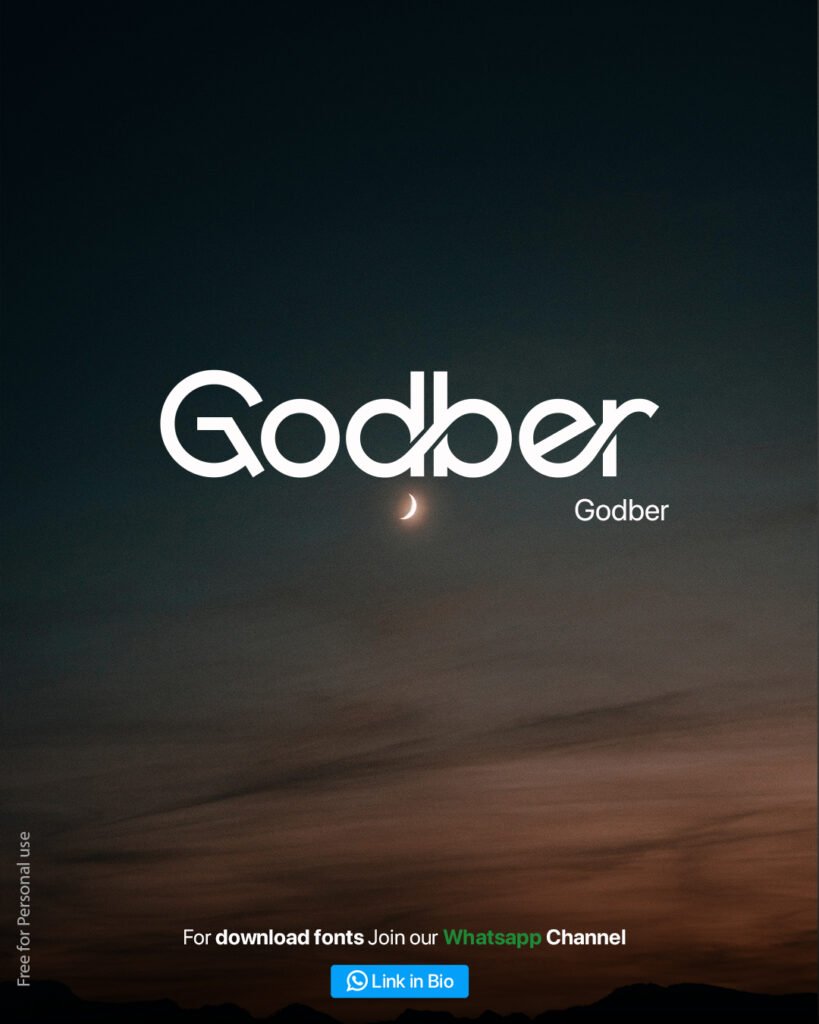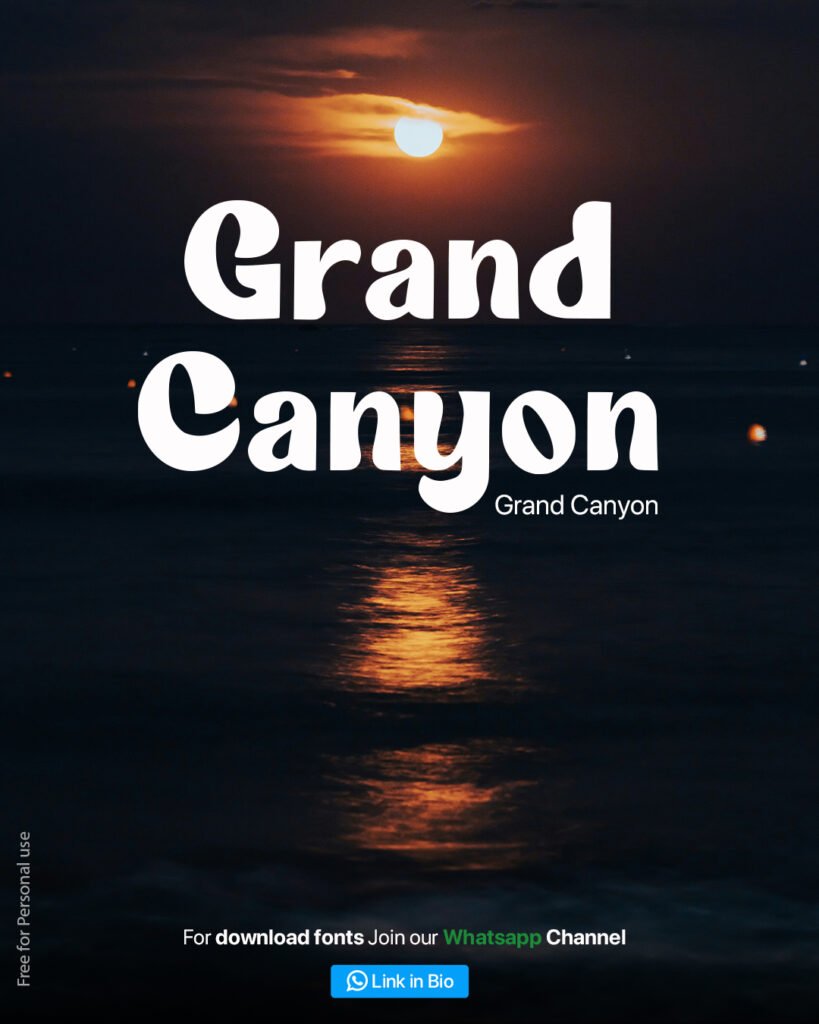
Introduction
Finding the right font for a logo is one of the most critical decisions in brand identity design. The wrong font can make even the best logo concept look cheap, while the right font instantly communicates personality, professionalism, and purpose.
In this third edition of our Logo Fonts series, we’re sharing 6 stunning free fonts that every graphic designer and brand identity designer should have in their collection. Whether you’re designing for a startup, a lifestyle brand, a tech company, or a streetwear label — there’s a font here for you.
1. Talina – Rounded Modern Font {#talina}
Best for: Lifestyle brands, beauty, wellness, SaaS, apps
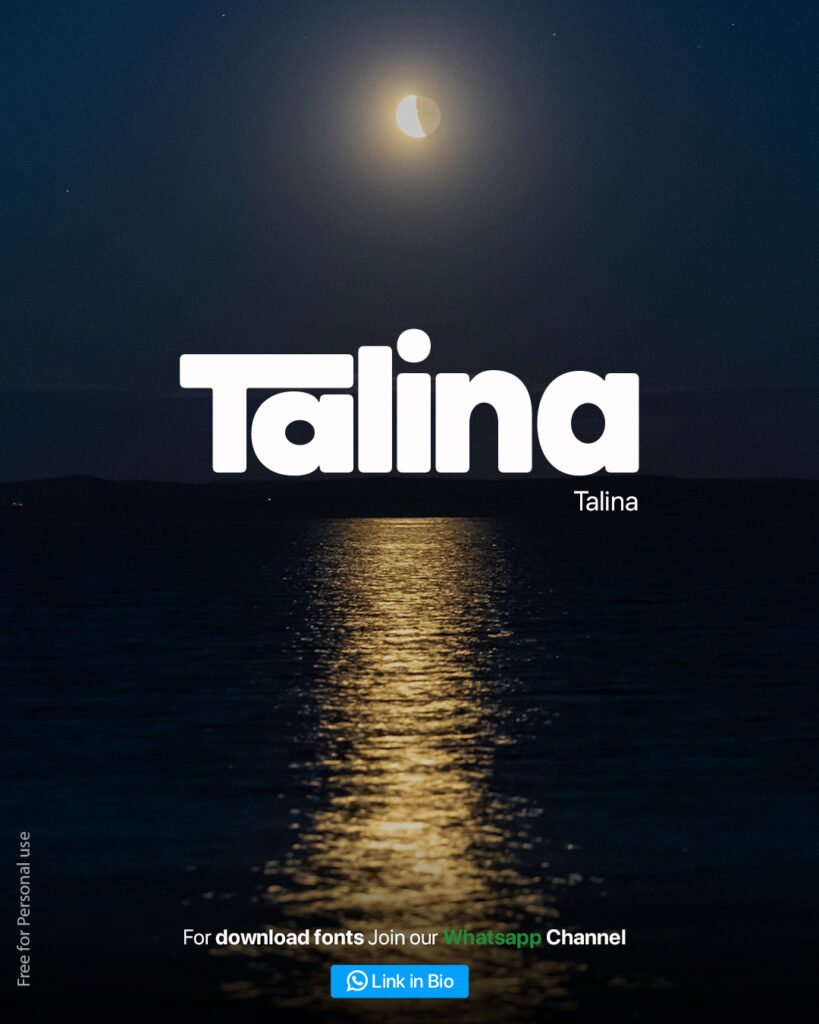
Talina is a beautifully rounded, modern display font with a clean and approachable aesthetic. The distinct feature of this font is the elevated dot on the letter “i”, which gives it a subtle personality without compromising its professional look.
Why Designers Love Talina
Talina works exceptionally well for brand names that want to feel friendly, modern, and approachable. The rounded letterforms reduce visual tension, making it a top choice for:
- Beauty and skincare brand logos
- Wellness and lifestyle app icons
- SaaS product wordmarks
- Children’s educational platforms
The generous spacing between letters also makes Talina highly legible at small sizes — a critical quality for responsive logo usage across mobile screens, business cards, and packaging.
Font Pairing Suggestions for Talina
Pair Talina with a neutral sans-serif like Inter or DM Sans for body text in brand identity systems. The contrast between Talina’s rounded curves and a geometric sans works beautifully in brochures and website headers.
2. The Last Trunks – Bold Edgy Display Font
Best for: Streetwear, music brands, gaming, entertainment
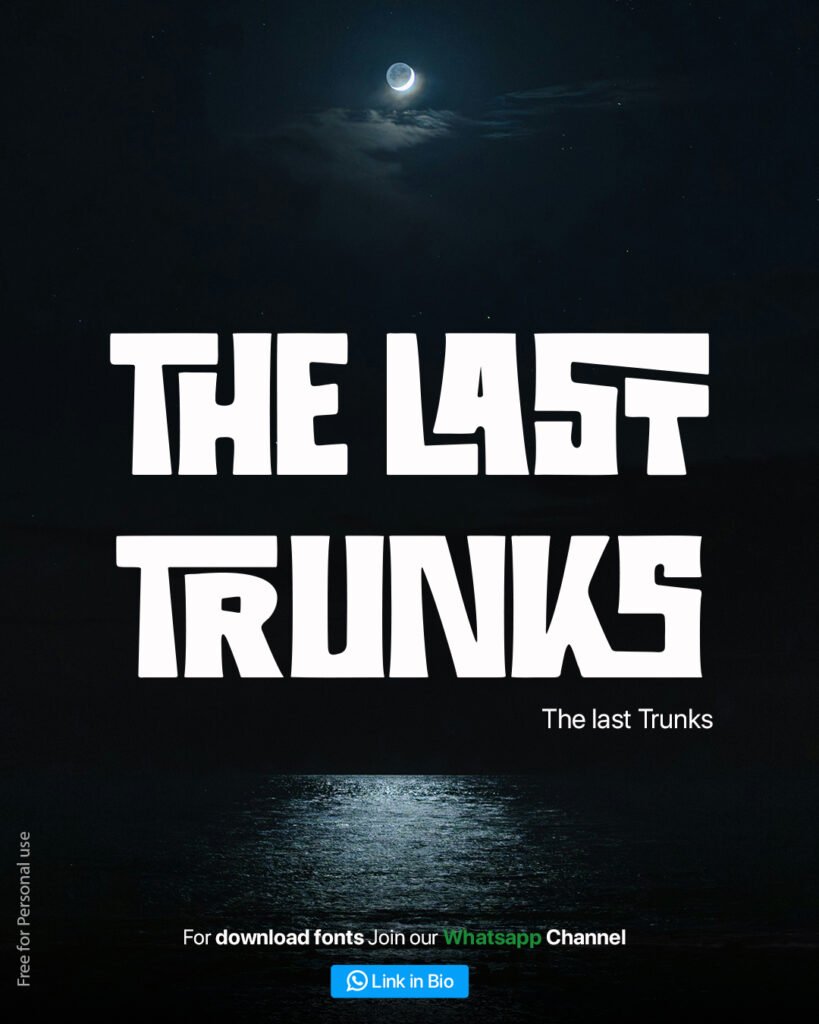
The Last Trunks is a high-impact, all-caps display font with a distinctively edgy character. The font features bold strokes with sharp diagonal cuts through letterforms — giving each character a deconstructed, aggressive visual energy.
Why Designers Love The Last Trunks
This font is not for the faint-hearted. It’s designed for brands that want to make a statement. The cut-through design details in letters like “A”, “E”, and “T” create a unique visual rhythm that’s instantly recognizable. This makes it a strong choice for:
- Streetwear clothing brand logos
- Music artist names and album covers
- Gaming channel branding and esports logos
- Event titles, festivals, and concert posters
When NOT to Use The Last Trunks
Avoid this font for corporate, healthcare, finance, or professional services branding. Its aggressive personality can work against trust-based brand positioning. Stick to industries where boldness is a feature, not a liability.
3. Corpta – Futuristic Tech Font {#corpta}
Best for: Tech startups, SaaS, fintech, AI companies, cybersecurity
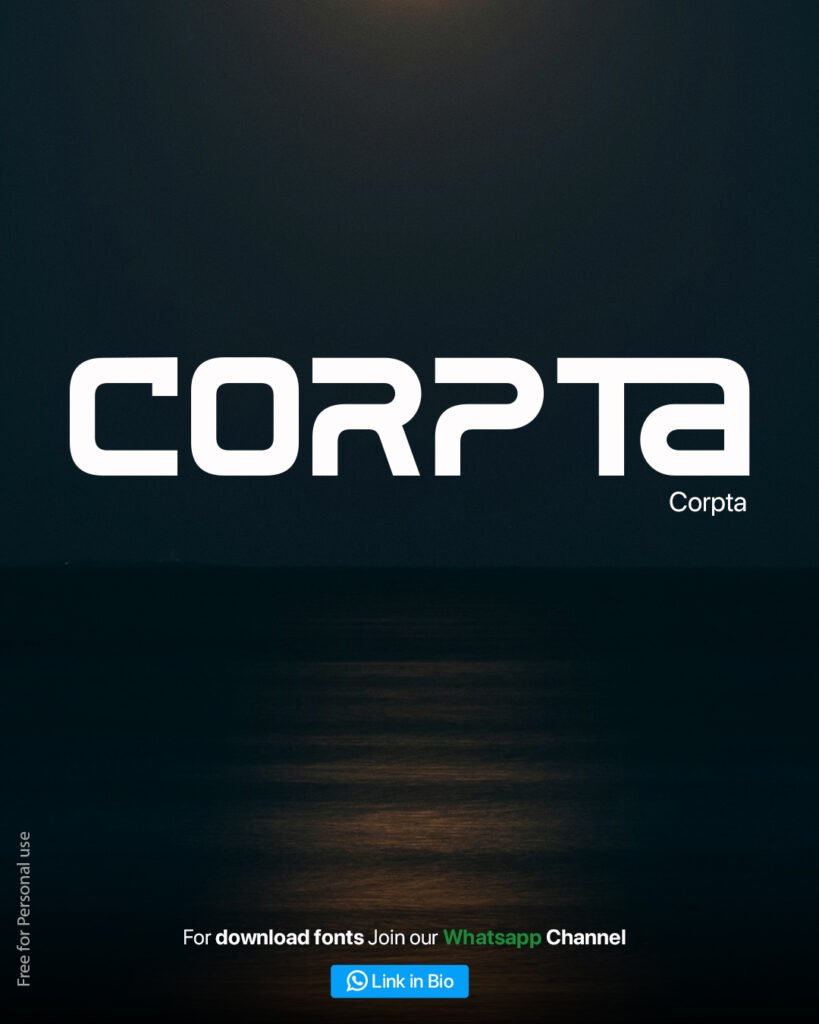
Corpta is a sleek, futuristic font that sits at the intersection of geometric precision and modern minimalism. Its most notable design trait is the square-rounded terminal style — letters have flat, clipped ends that communicate accuracy, logic, and forward-thinking design.
Why Designers Love Corpta
In 2025, tech and AI brands are dominating logo design trends. Corpta is built for exactly this environment. The font has a strong presence at large display sizes while maintaining clarity at smaller scale. Key use cases include:
- AI and machine learning product logos
- Fintech and blockchain brand identity
- Cybersecurity and SaaS company wordmarks
- Mobile app icons and product branding
The Geometry Behind Corpta
What makes Corpta special is its mixed-case design approach — the uppercase letters feel industrial while certain lowercase characters (like the “a”) introduce a softer, more humanized touch. This blend gives the font a technological but accessible character, which is exactly what modern tech companies need to balance authority with approachability.
4. Quizlo – Playful Chunky Font {#quizlo}
Best for: Apps, youth brands, EdTech, gaming, social platforms
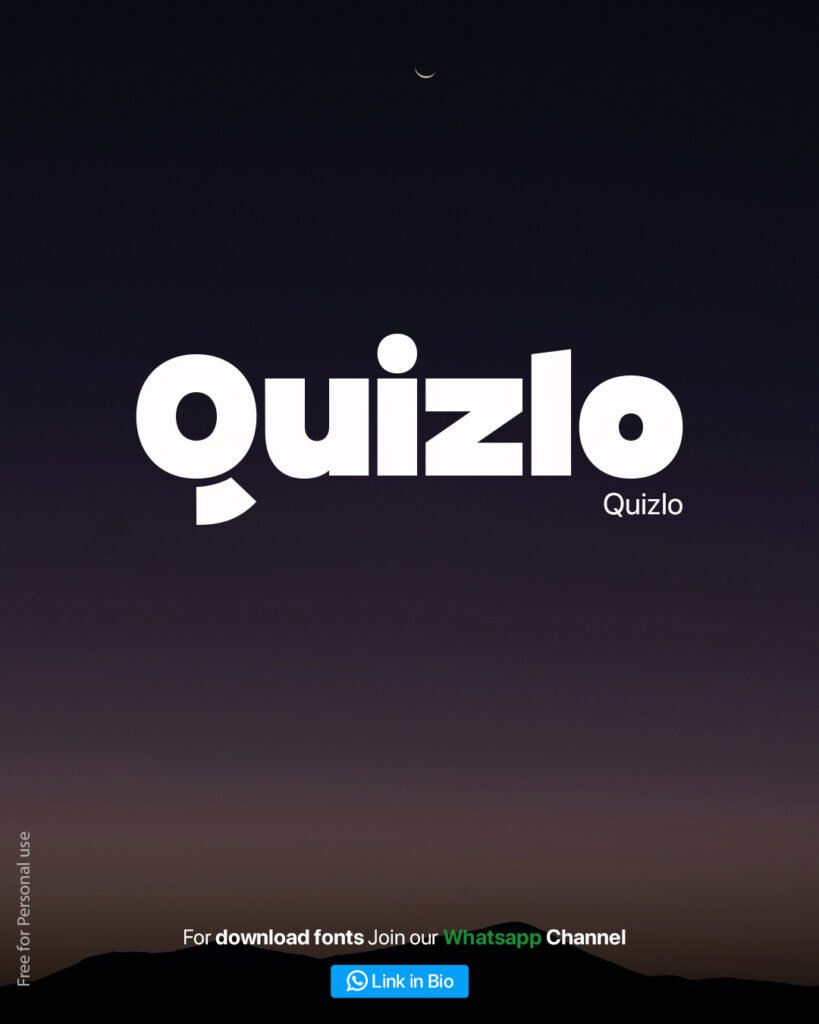
Quizlo brings energy and personality to any logo. This chunky, ultra-bold font features heavy stroke weights with playful details — including a distinctive comma-like tail on the “Q” and elevated dot styling that gives the typeface a quirky, memorable quality.
Why Designers Love Quizlo
Quizlo is built for brands that want to be remembered. The oversized proportions and confident stroke weights create logos that pop instantly, even on small screens. It’s a natural fit for:
- Quiz and trivia app logos
- EdTech and online learning platforms
- Youth-oriented social media brands
- Gaming and entertainment channels
3. Where will the logo be used? Consider all touchpoints — digital screens, print, signage, merchandise. Fonts that are too decorative can lose legibility at small sizes. Always test your chosen font at 16px and 64px before finalizing.